griffin & hoxie
Some of you may be familiar with the verbal antics of A. Moses Griffin, and some of you may not. To be brief, he writes about a plethora of topics seemingly at random and does a damn good job with his prose, and he’s blunt. I like blunt. The design is blunt too, and that’s the magic.
For reference, it has been brought to my attention that the design is a modified version of a wordpress theme, but the critique is about the end result, not the means. Read on!
personality
There’s no frills or gradients or flair anywhere, but there’s definitely a personality that surrounds the site. Griffin stands behind his opinion and his type choices affirm that. When someone says something in a dull apathetic lower case typeface, it doesn’t have the strength and confidence of Rockwell. Bold. All caps. Yeah-I-said-it-design. This type of no-nonsense typography gives power to his opinion. It’s not a new technique, but one that seems to have fallen out of things lately. Having seen Helvetica recently I’m reminded of the ad Coke had ran in the 1950’s:
…it doesn’t have the strength and confidence of Rockwell. Bold. All caps.
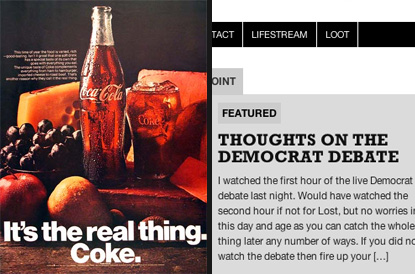
Much the same as when the Coke ad appeared, the simple powerful headlines drive the point home while everyone else still frolicks with display typefaces.
layout
The layout consists of three equal-width columns on the index page, with the main content taking over two columns width of space on internal pages. The tabbed section at the top of the index is a great way of singling out and assigning focus to the information that is commonly the most relevant to visitors. The layout breaks away from what is typically expected of one man sites. And I hesitate to call it a blog because it feels more like a site dedicated to the opinion section of a newspaper.
The structure of the site is well defined and logical, with the most important content starting from the upper left and the least important sitting in the lower right. The subheadings allow for some witty banter while maintaining usable headlines that can be read while scanning the page.
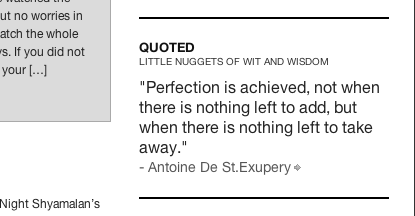
criticism
As much as I like the logo type. I’m not a fan of the drop shadow, black text with a dark shadow just creates a blurry edge. In fact, at such a large size it may not need the shadow to make it pop and grab attention. In fact, if it was actually lighter in color it would draw more attention to itself and set a proper hierarchy with the navigation bar.
There’s a few white-space and alignment issues that catch my eye at times where things feel slightly too tight or too large. The image of the ‘quoted’ section above is a good example, the citation seems a little too close to the quote. Perhaps if it was aligned to the right and another size smaller it wouldn’t feel so claustrophobic.
There’s a few things that harken to Subtraction, but they fit in well here and their relative use with other elements that are more full of character change how you look at the Subtraction-esque areas. Sometimes it’s just been done the right way before and the design patterns fit here as well.
design change
It’s been brought to my attention that Griffin & Hoxie will be undergoing a theme change today, here are some further screenshots for when the design does change:
I don’t like the main page of this site; it’s cramped, and could definitely benefit from some vertical rhythm. I also think that the top of the ‘Recent Entries’ and ‘Webnotes’ columns should really line up.
On the entry pages, it does have a nice newspaper-ish feel about it. I also particularly like the illustrations / images that accompany the entries, without them the entries would be fairly boring plain text.
I appreciate this critique Kyle, and it came as something of a surprise to be sure. I’ll admit feeling a bit sheepish at your attention in light of the heavyweights that came before this one. Not sure how I feel coming after Jesús Velasco and Coudal Partners, but the attention does tickle the populist streak in me. Like, I hope you continue to target more little know places among the bigger names going forward, but, as I said, that’s the populist in me. Maybe one to many John Edward’s speeches.
As for the post, I think you’re spot on in your critique. Liked the advice about the header, and I’m kinda uncomfortable with the spacing myself. Feels a bit too cramp, like Guy mentioned, and unbalanced. I normally gravitate towards a free range, rural, stripped down style. This was an attempt to go city because it seemed like a new avenue to explore. Not sure how it fits me, though I might not be the best judge of this so it was good to hear your take.
So, again, appreciate the critique Kyle, and the thoughts it sparked. Look forward to other folk’s thoughts as well. I get a kick out of reading what did not work. There’s usually gold in there.
That was a very thorough review. I agree with you on the matter of the drop-shadowed logo. It gives the text a blurry aspect whereas the rest of the site is formal and slick. I do not think that any drop-shadow is needed. The text, as you said, is large enough that it bring attention to itself without one.
With that said, I did put some effort into styling the theme to my liking. The results of that effort are debatable of course, which is all in good fun. Personally what struck me about Kyle’s take on the design was his discussion of how the styling fits my personality, or voice. Can’t say I consciously set out to do this, but it’s an interesting thought. I would think the closer one hews to keeping the style and typography consistent with their tone of writing, the more impact a design might have, that creating what “looks cool” might not be the best approach if it deviates from the style in which you say it. I’d be curious to hear from some professionals if, and how, they factor these decisions into their work.